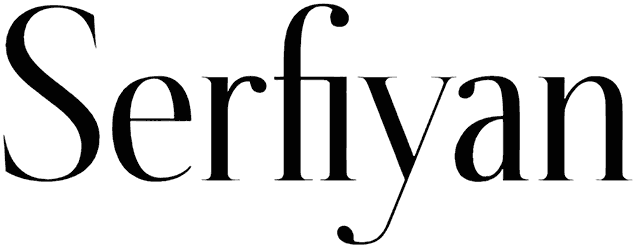
Serfiyan Font
Worried about keeping elegance an essential part of your branding strategy? Fine, we’ll just let Serfiyan know, and it’ll take care of the rest. This serif font may lack any special decorations and too many details, but that classic touch is more than enough to make up for everything else. You’re not even gonna miss any of it.
We’re telling you, any formal situation, from law firm logos to fancy restaurants, can be tastefully handled with Serfiyan. Just go for it.